Garamono Harpsichord Dust Cover
Introducing the Garamono Harpsichord Dust Cover — a weirdly specific specimen object. The embodiment of the high renaissance. Aesthetics over function. An ode to craft. Decadence in all its beauty...
This beautifully crafted edition was a collaboration with Malin Dittmann. We worked over the course of a year to create a set of 10 laser etched felt dust covers, nestled within an equally beautiful hand crafted presentational box. The dust cover fits the keyboard for one Virginal (harpsichord) made by H. van Emmerik in 1975 – a copy of a 17th century Flemish model, belonging to the professional harpsichord player Manolo Frankenberg. Photographed at his home in Amsterdam by Kelly van Kampen.
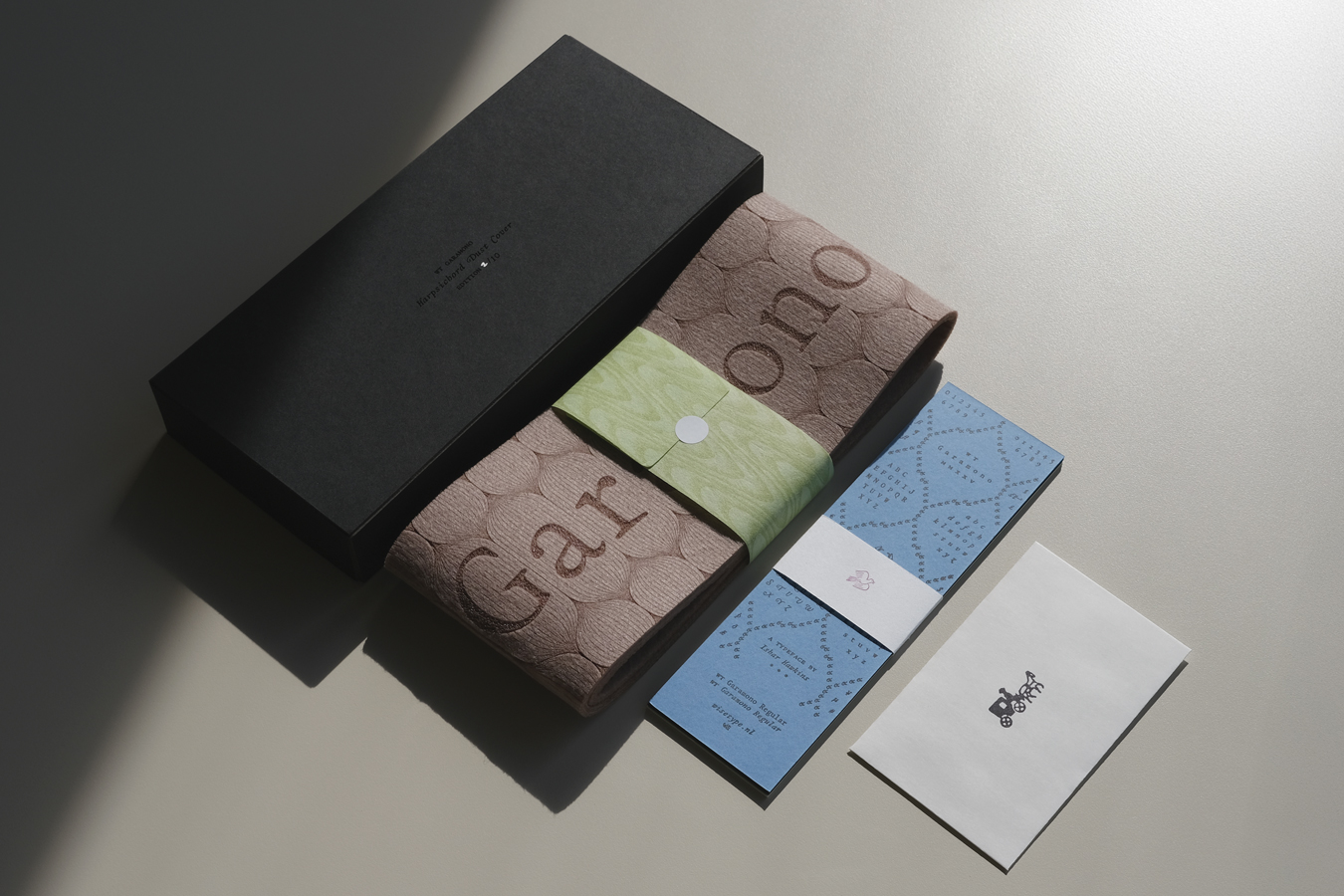
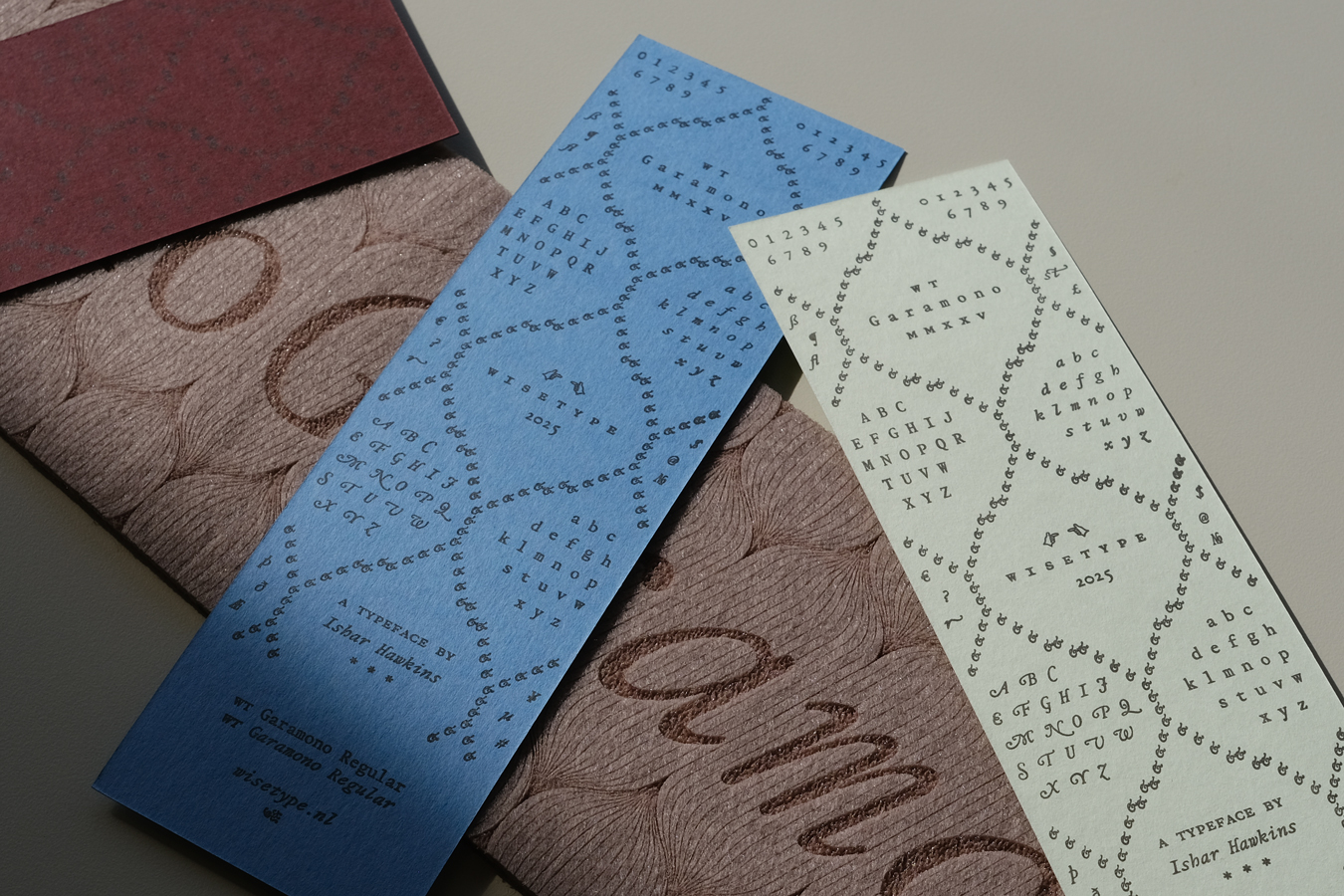
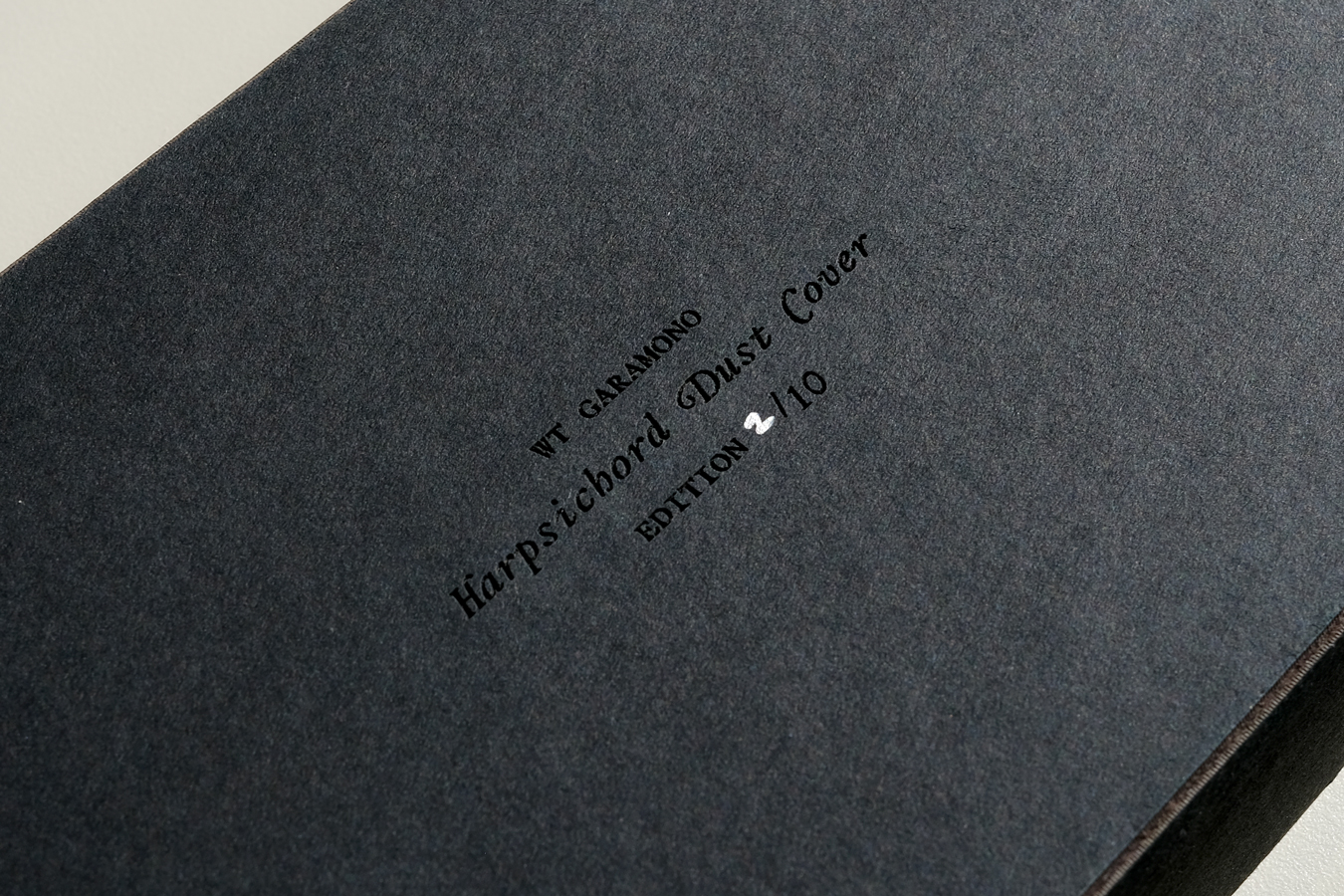
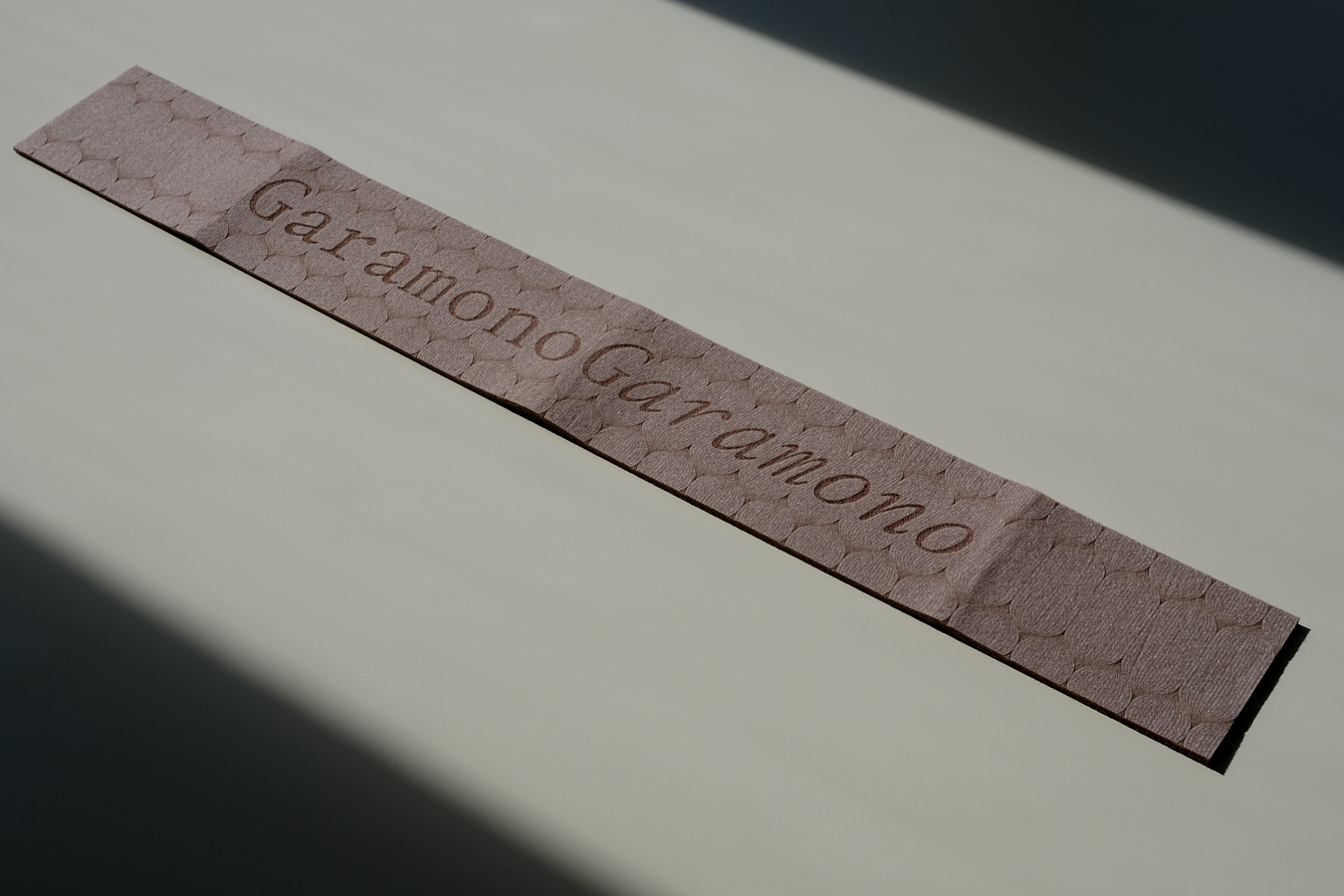
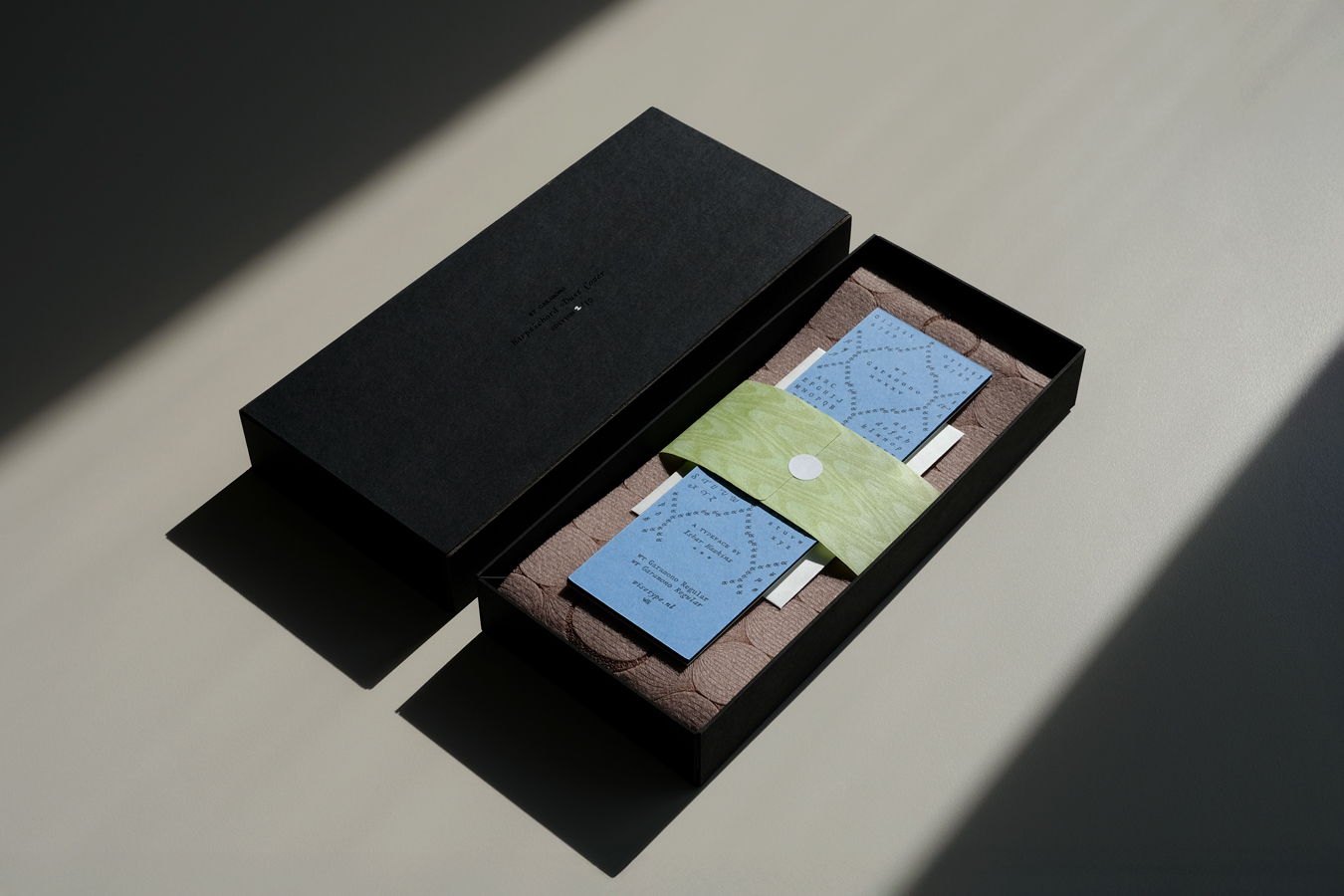
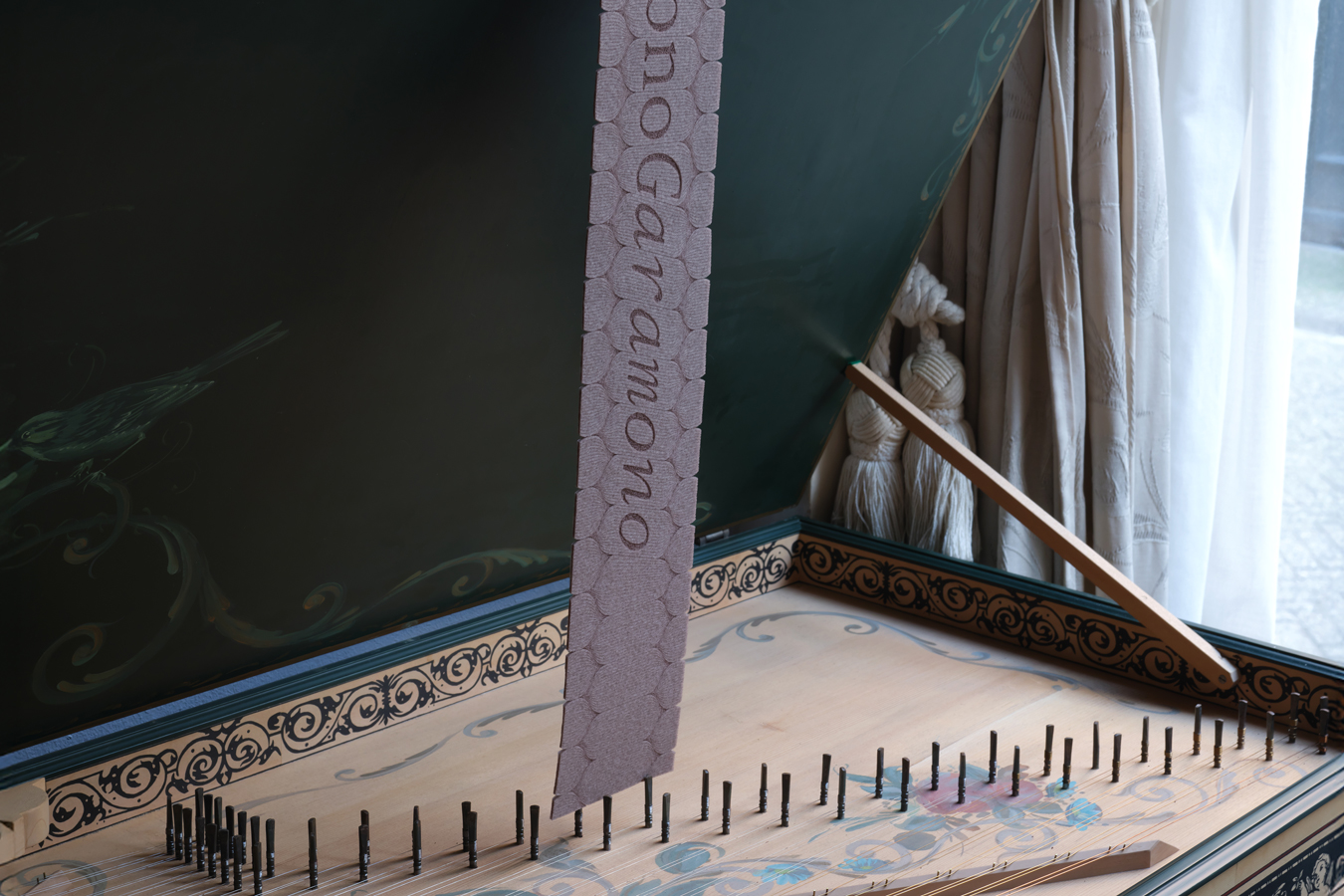
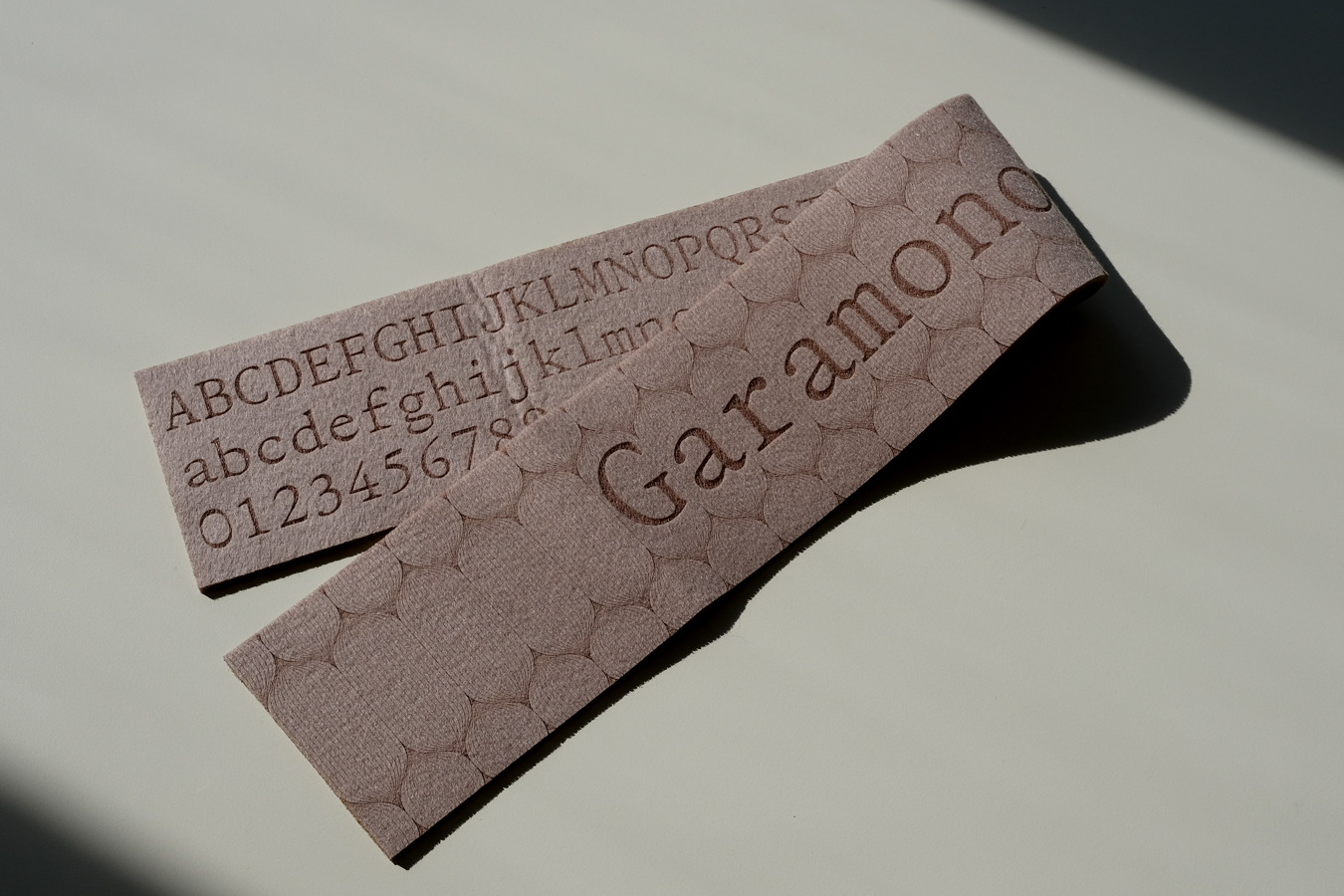
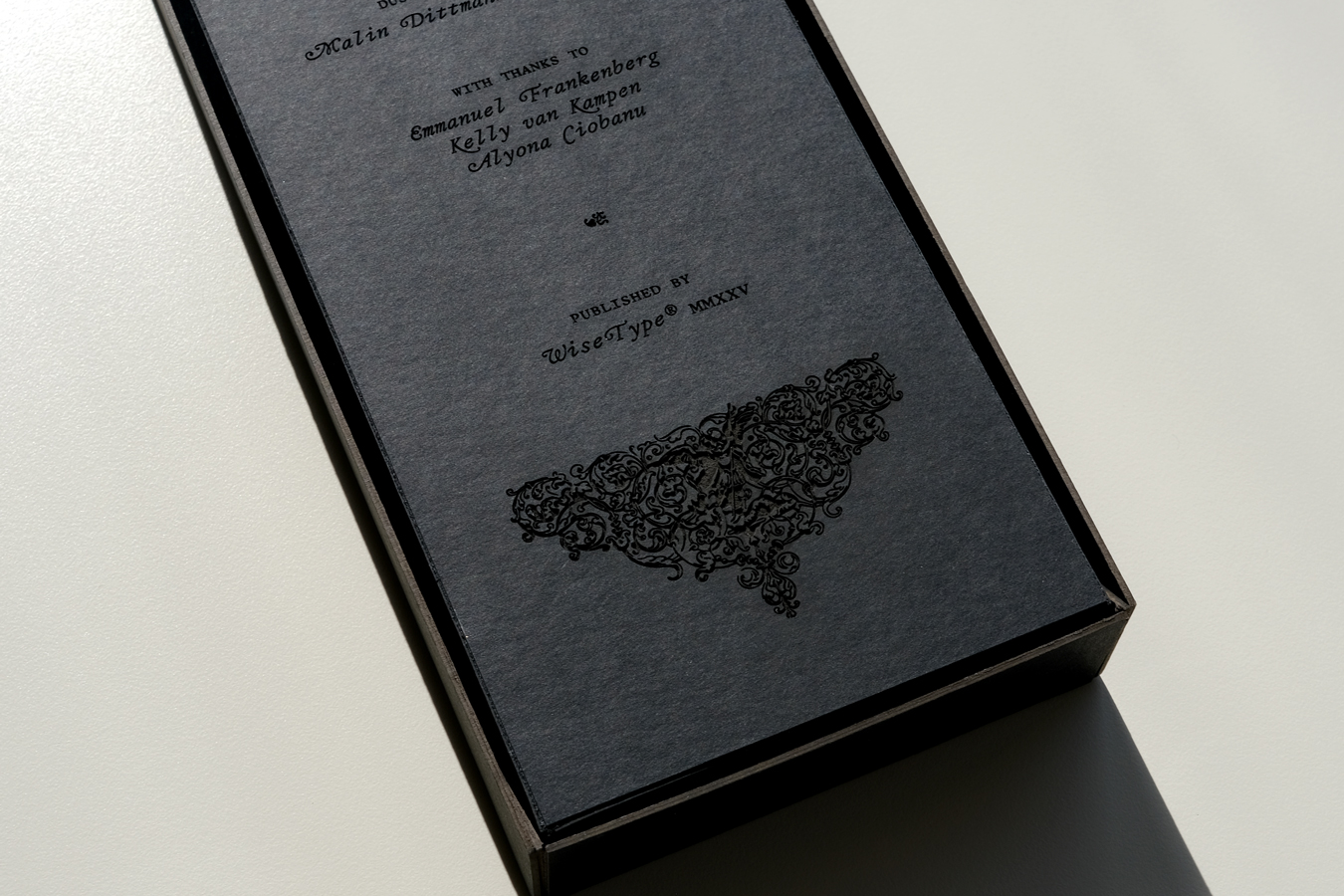
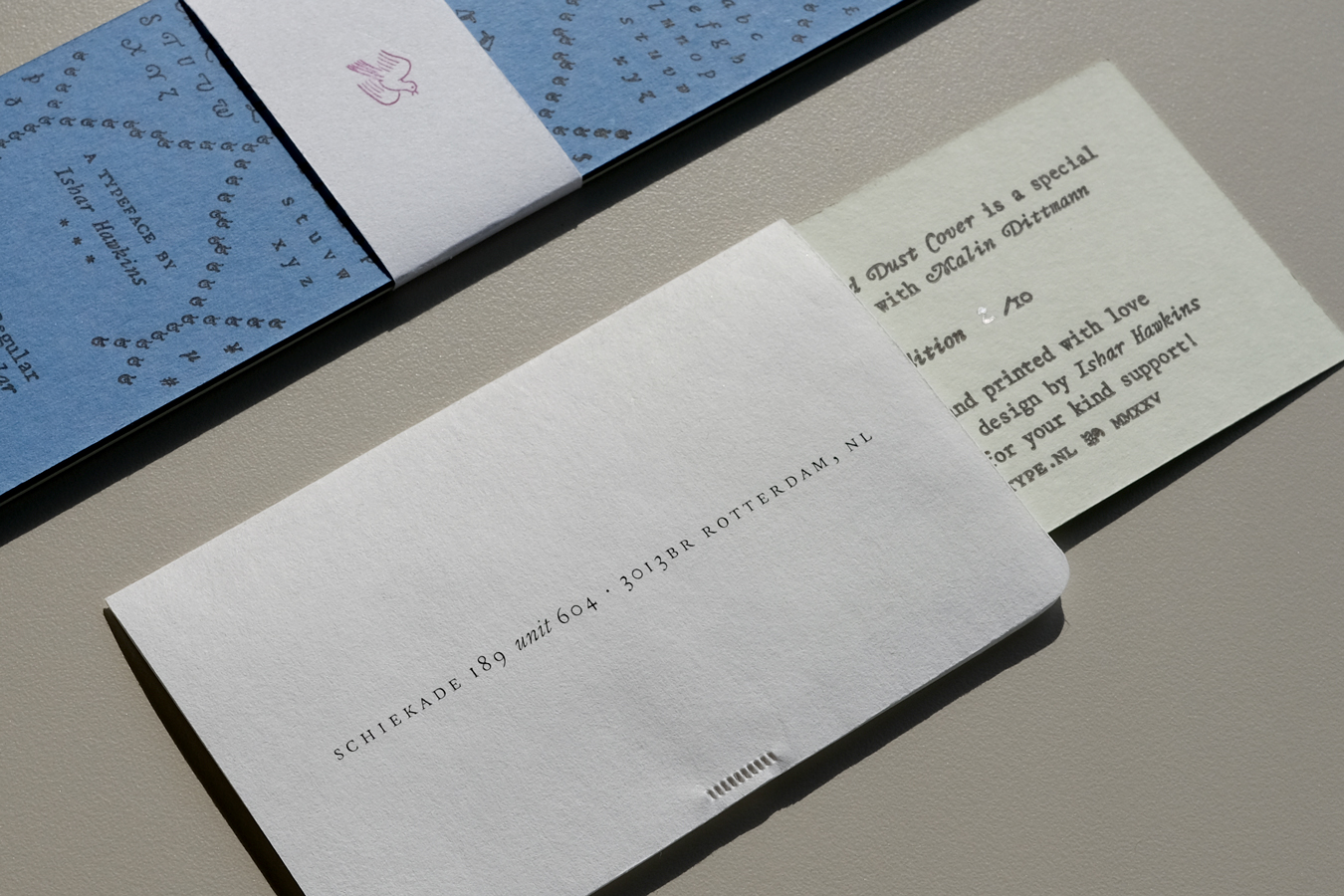
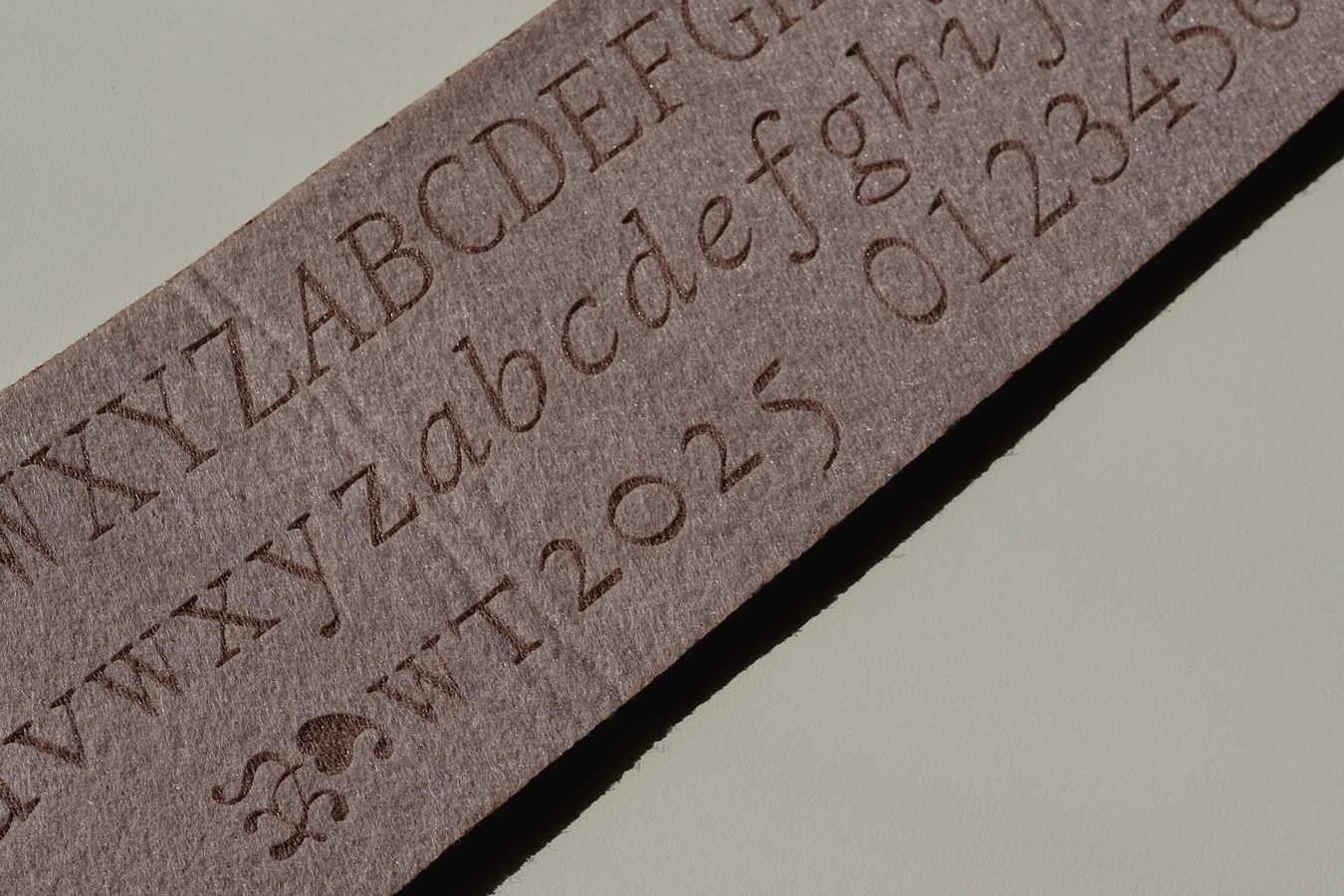
1 × Double-sided harpsichord dust cover specimen,
laser etched on brown felt
1 × Custom-made presentational box,
laser etched front and back on heavyweight black card
6 × Bookmarks, letterpress printed on
G.F. Smith Colorplan: Pistachio | New Blue | Claret, 350 g/m²